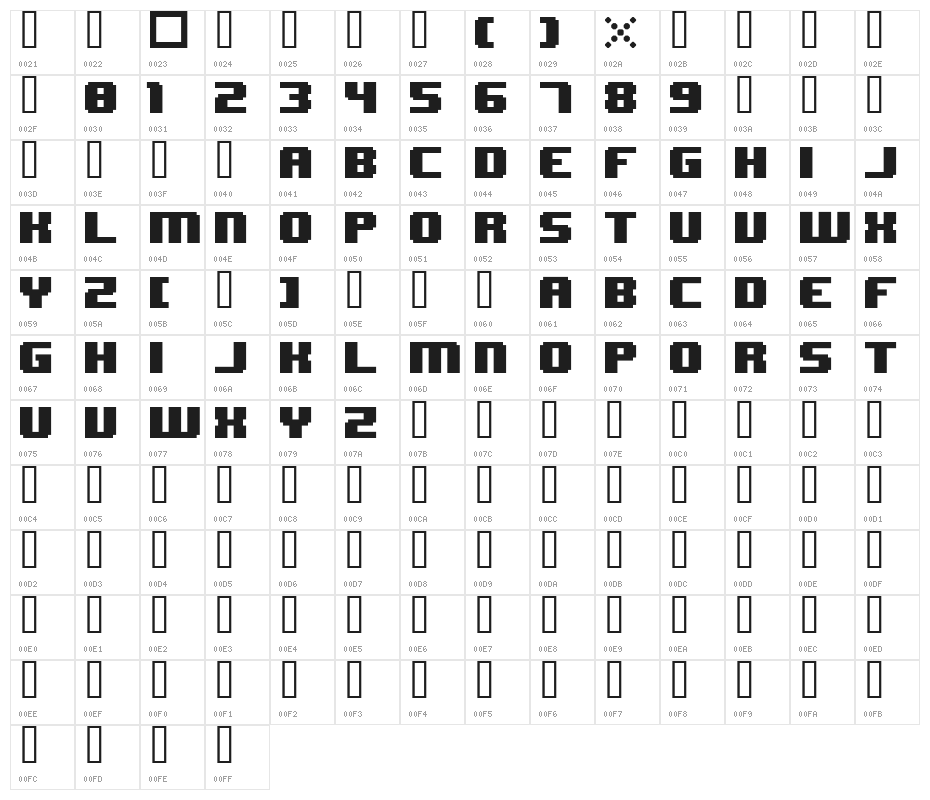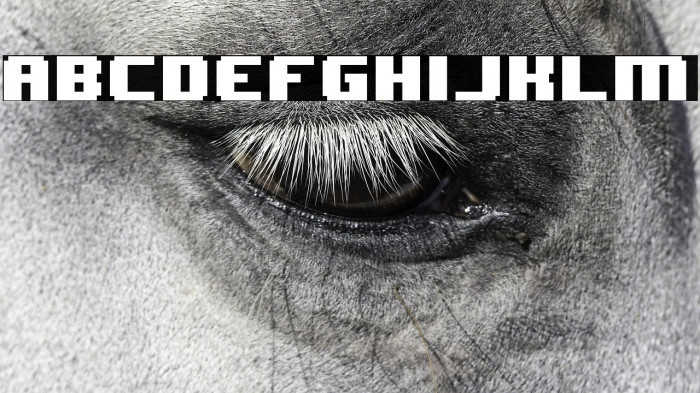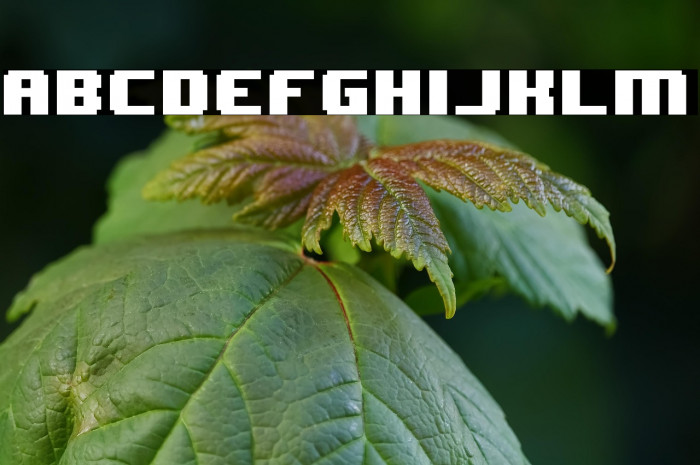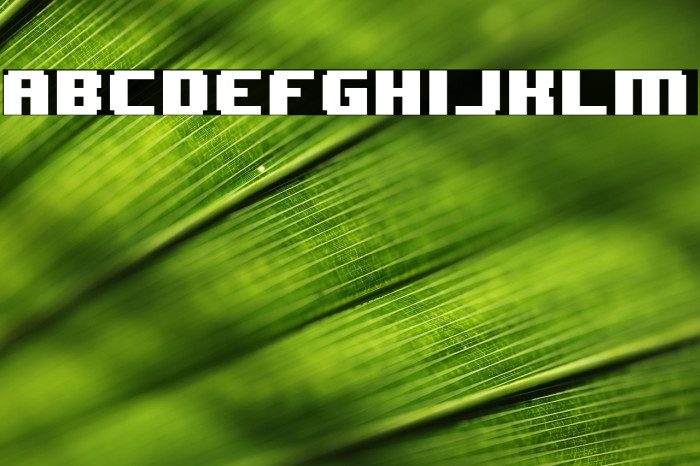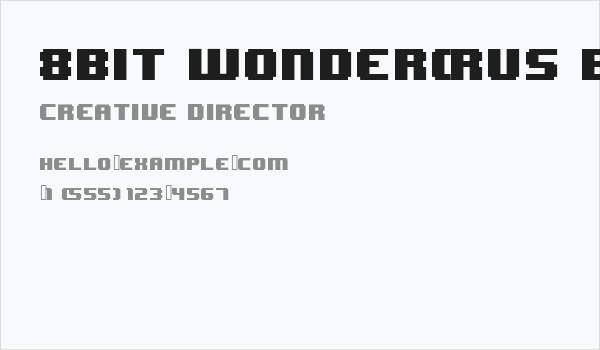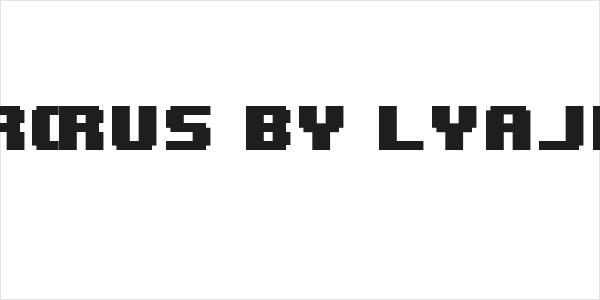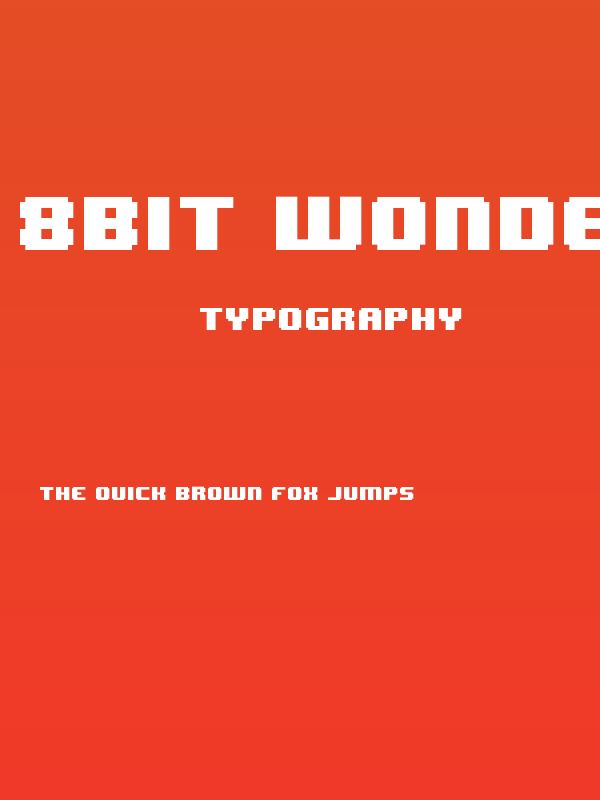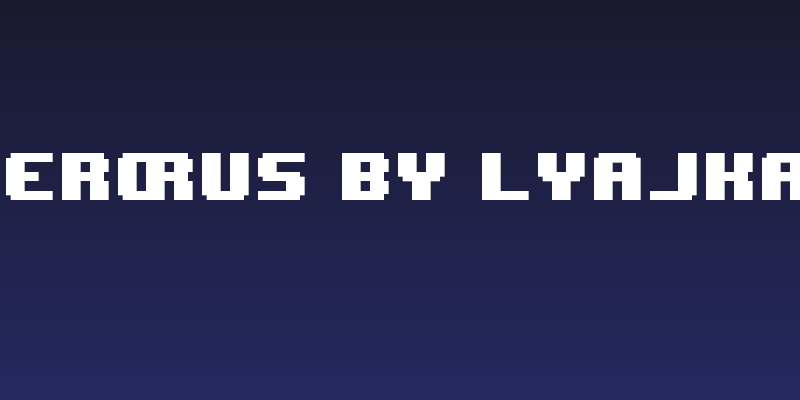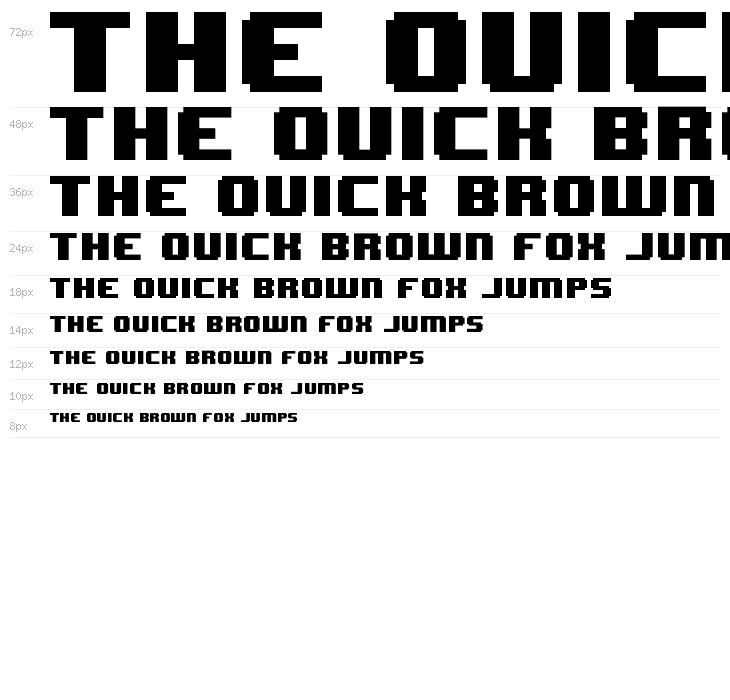
8BIT WONDER(RUS BY LYAJKA) Nominal Font
8BIT WONDER(RUS BY LYAJKA) Nominal Description
This font embodies a retro, pixelated style reminiscent of early video game graphics. Each character is constructed with a blocky, square design, giving it a distinctly digital appearance. The uniformity in height and width across all characters enhances its structured and cohesive look. The font is highly legible, with clear distinctions between each letter and number. It evokes a sense of nostalgia, making it ideal for projects that aim to capture the essence of 8-bit or vintage computer aesthetics. The bold, geometric shapes ensure that it stands out, making it suitable for attention-grabbing headlines or titles.
| Proposed Projects | Perfect for video game designs, retro-themed posters, digital art projects, and nostalgic branding. |